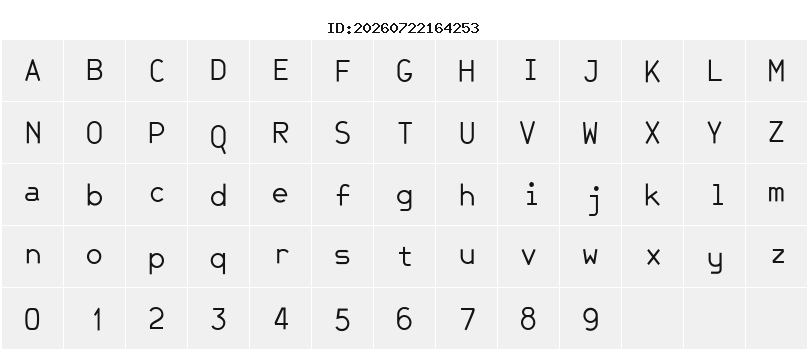
JetJaneMonoMM Preview
About JetJaneMonoMM.ttf
JetJaneMonoMM.ttf is a modern, elegant sans-serif font designed for ultimate readability and visual harmony. Perfect for branding, headlines, web design, and print materials.